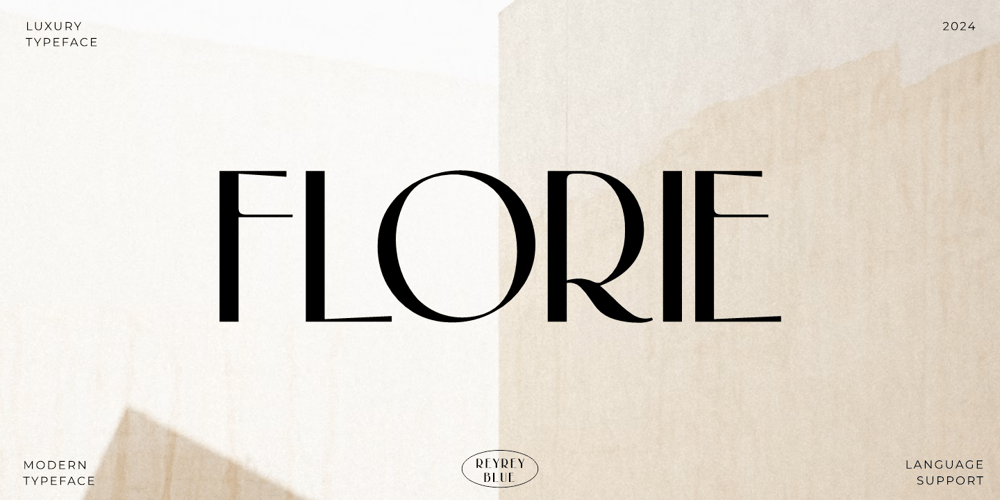
Florie Font Family was designed by Risca Anitawati and published by Reyrey Blue Std. Florie contains 1 styles and family package options. Introducing Florie. It is a beautiful sanserif font. With its sleek lines and modern elegance, It can be the best solution to make their design look more attractive and contemporary.This type of font is perfectly made to be applied especially in logos, headlines, signage, and other various formal forms such as invitations, labels, logos, magazines, books, greeting/wedding cards, packaging, fashion, makeup, stationery, novels, labels, or any advertising purpose. This product was created to help you make your digital images even more beautiful and unique.Features : All Uppercase and Lowercase Number & Symbol Supported Languages Ligatures PUA Encoded